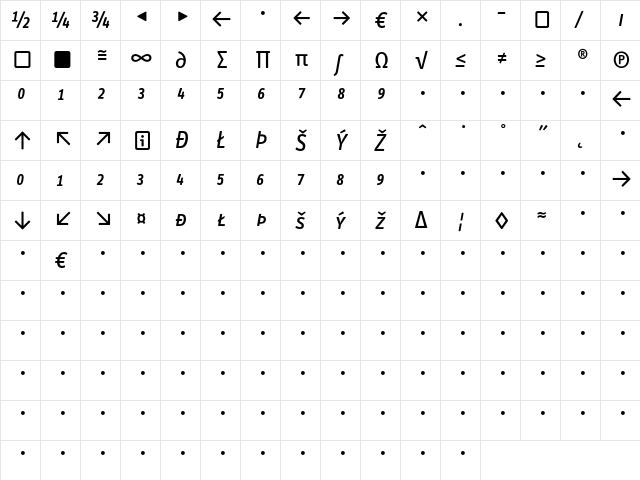
InfoTextBook CapsItaExp
Design Context for InfoTextBook Typeface
InfoTextBook offers clean, dependable letterforms without strong stylistic allegiance, making it a practical choice for designers who need flexibility.
Pro Tip: Pair InfoTextBook with a font of contrasting weight or personality to build a more expressive typographic hierarchy.